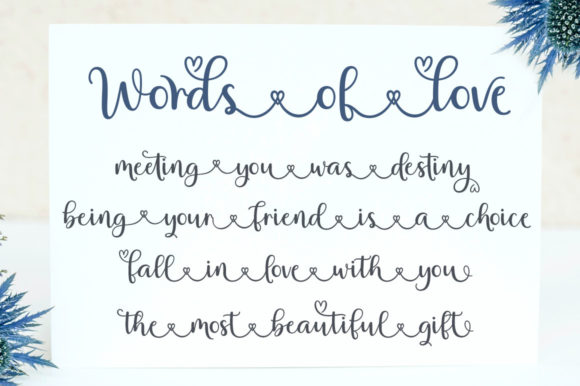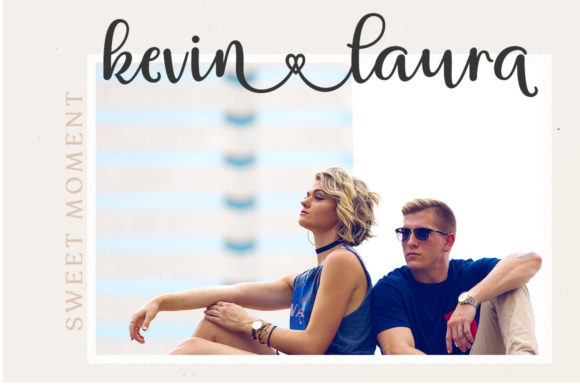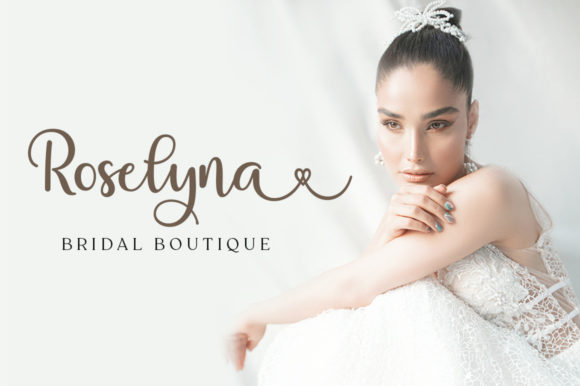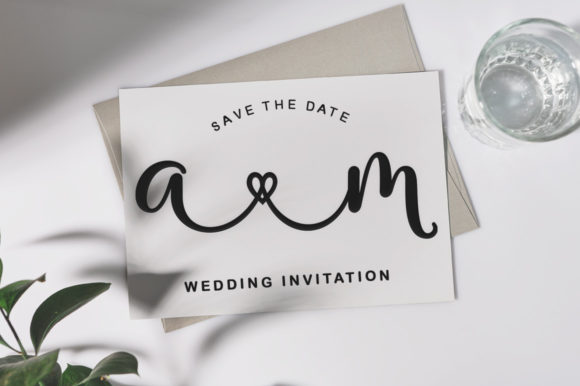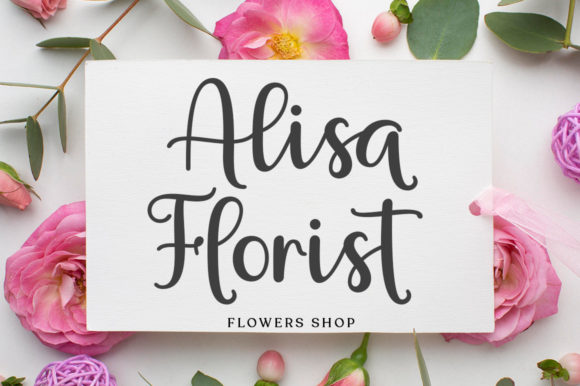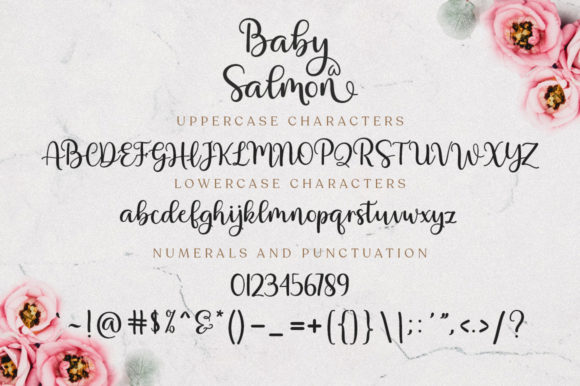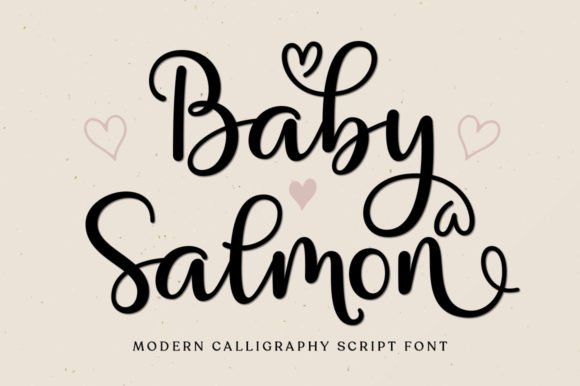
Unlock the Magic of Baby Salmon Script Font
As I sat at my desk, surrounded by scraps of paper and half-finished projects, I knew exactly what I needed to take my designs to the next level – a touch of romance and whimsy. And that’s exactly what I found in the Baby Salmon Script Font. This beautiful, hand-drawn calligraphy typeface is the perfect addition to any design project, adding a luxurious and sophisticated feel that’s sure to impress.
With its delicate, flowing characters that dance along the baseline, the Baby Salmon Script Font is a true showstopper. But what really sets it apart is its PUA encoding, which makes it easy to access all of the amazing glyphs and ligatures that come with it. Whether you’re a seasoned designer or just starting out, this font is a valuable addition to your toolkit – and it’s sure to elevate your designs to new heights.
Baby Salmon Script Font Key Features
- Font Style: Casual, Script
- Unique Characteristics: Handwritten feel, elegant and delicate design, perfect for creative and artistic projects
Designer Review: Baby Salmon Script Font
Overall, I’m impressed with the Baby Salmon Script Font’s charming and delicate aesthetic ✨. The flowing curves and soft connections between letters evoke a sense of whimsy and elegance, making it perfect for adding a touch of sophistication to various designs.
- The font’s high x-height allows for excellent readability, even at smaller font sizes ✨.
- The font’s versatility is evident in its ability to work well in both digital and print formats ✨.
- The Baby Salmon Script Font is a great choice for designers looking to add a touch of playfulness and personality to their designs ✨.
However, there are a few limitations to consider ⚠️:
- The font’s complexity may make it challenging to pair with bold or geometric fonts, as it may clash with their contrasting styles ⚠️.
- The font’s delicate nature may not be suitable for use in situations where readability is paramount, such as in body text or long blocks of text ⚠️.
Overall, I’d give the Baby Salmon Script Font 4 out of 5 stars. It’s a beautiful, versatile font that’s perfect for designers looking to add a touch of whimsy and elegance to their designs. While it may have some limitations, it’s definitely worth considering for your next project.
The Baby Salmon Script Font is ideal for creative and whimsical designs, such as invitations, baby shower decorations, and children’s book illustrations. To get the most out of it, use it in combination with other playful fonts and illustrations. Experiment with different font sizes and colors to create a unique and eye-catching design.